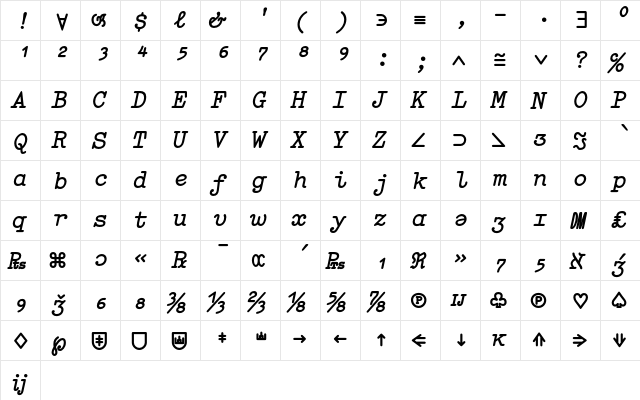
Design Context for Elementa Symbol Typeface
Elementa Symbol offers clean, dependable letterforms without strong stylistic allegiance, making it a practical choice for designers who need flexibility. The slanted form adds forward momentum and visual energy. The heavy weight commands attention and anchors typographic hierarchies.
Pro Tip: Try Elementa Symbol for annotation and caption copy alongside an upright companion — the contrast in angle creates a dynamic but ordered typographic system.